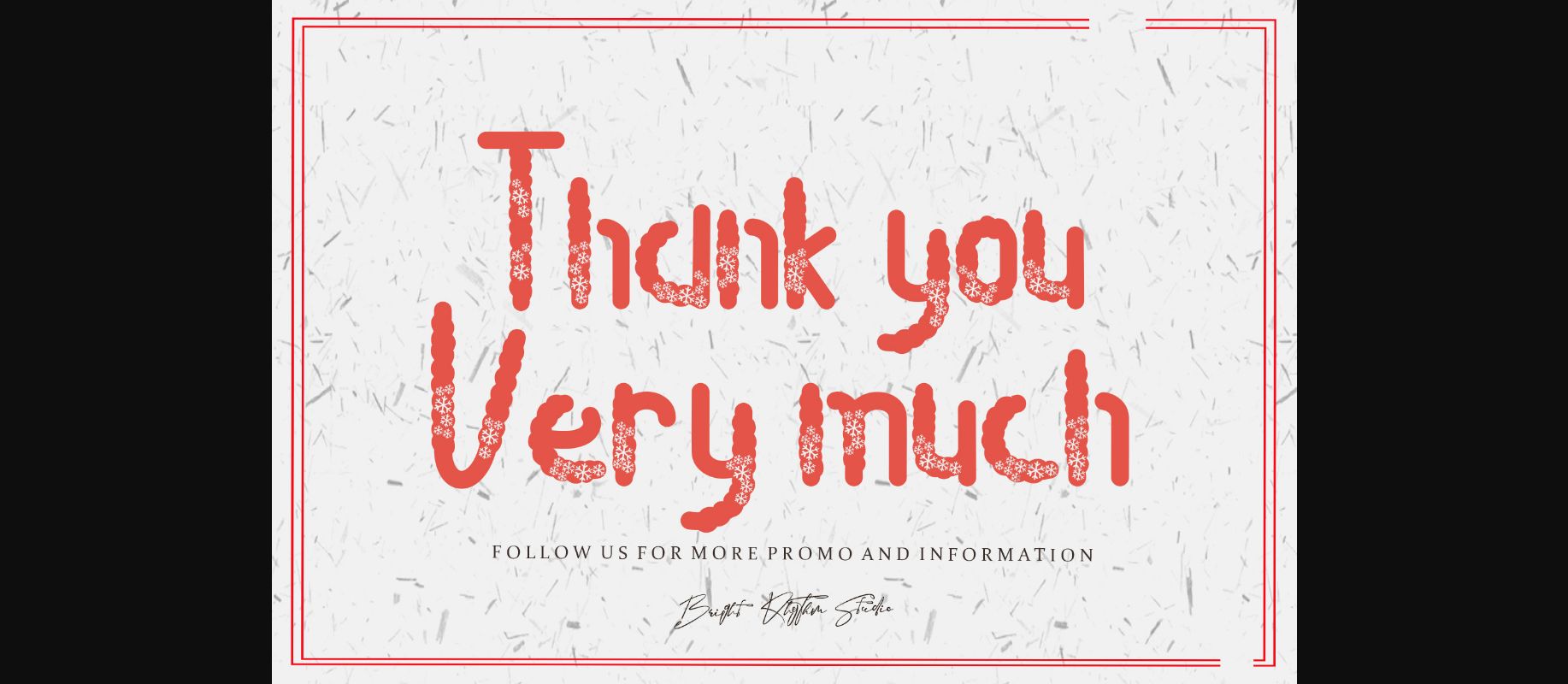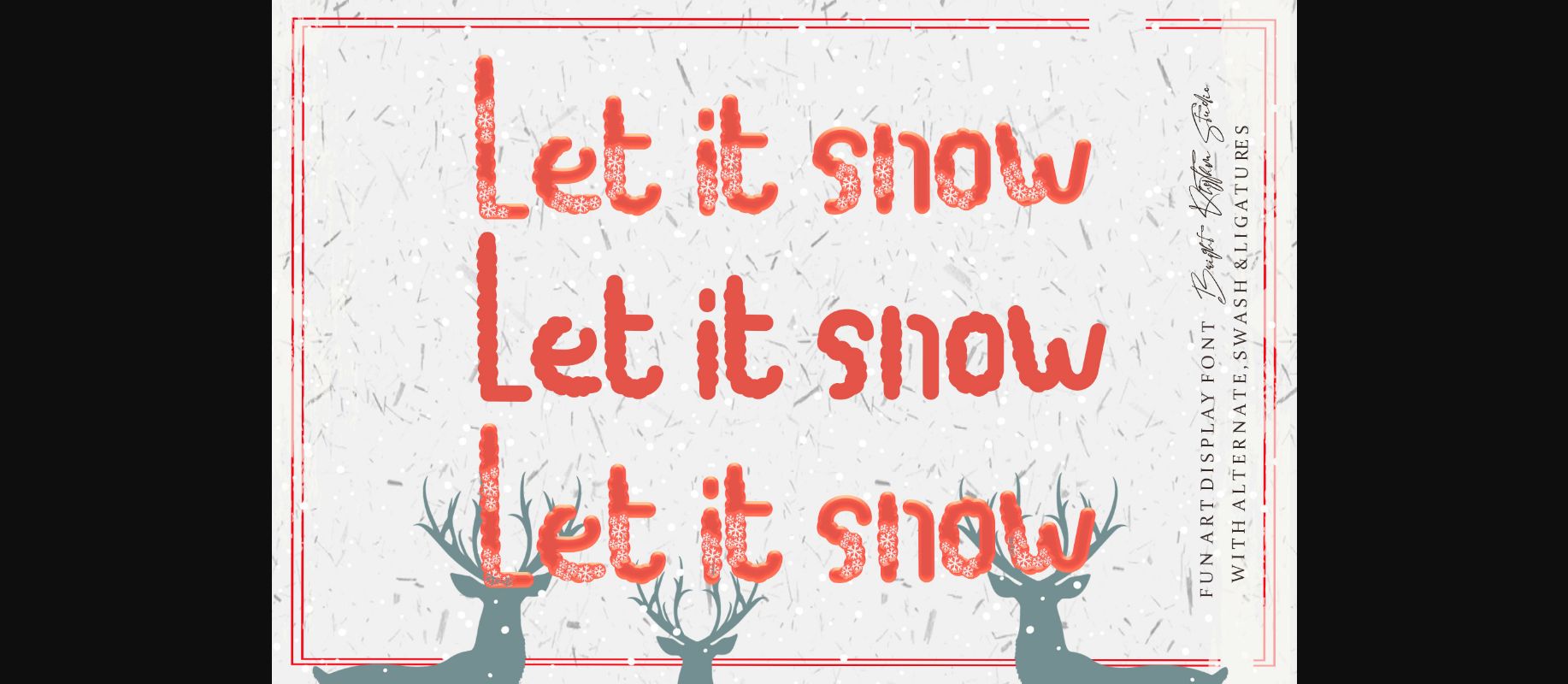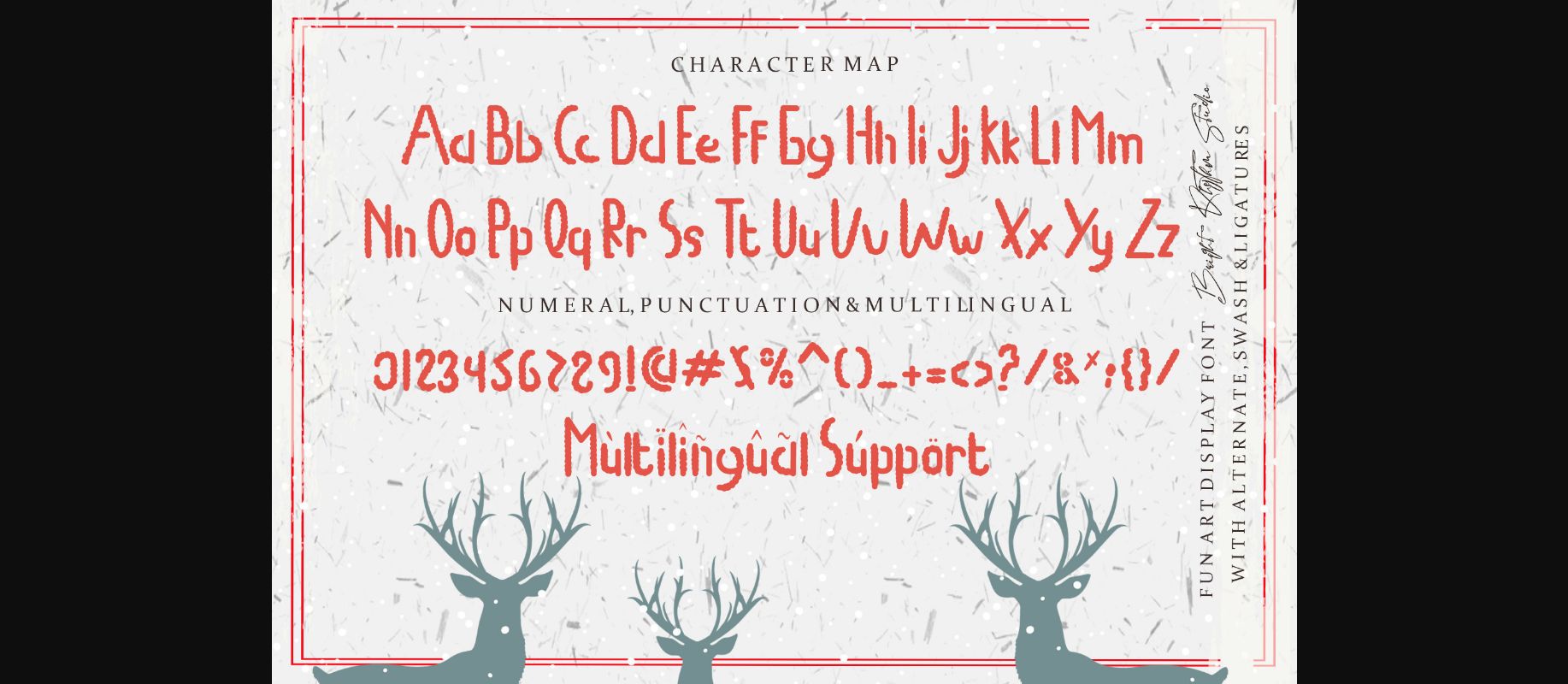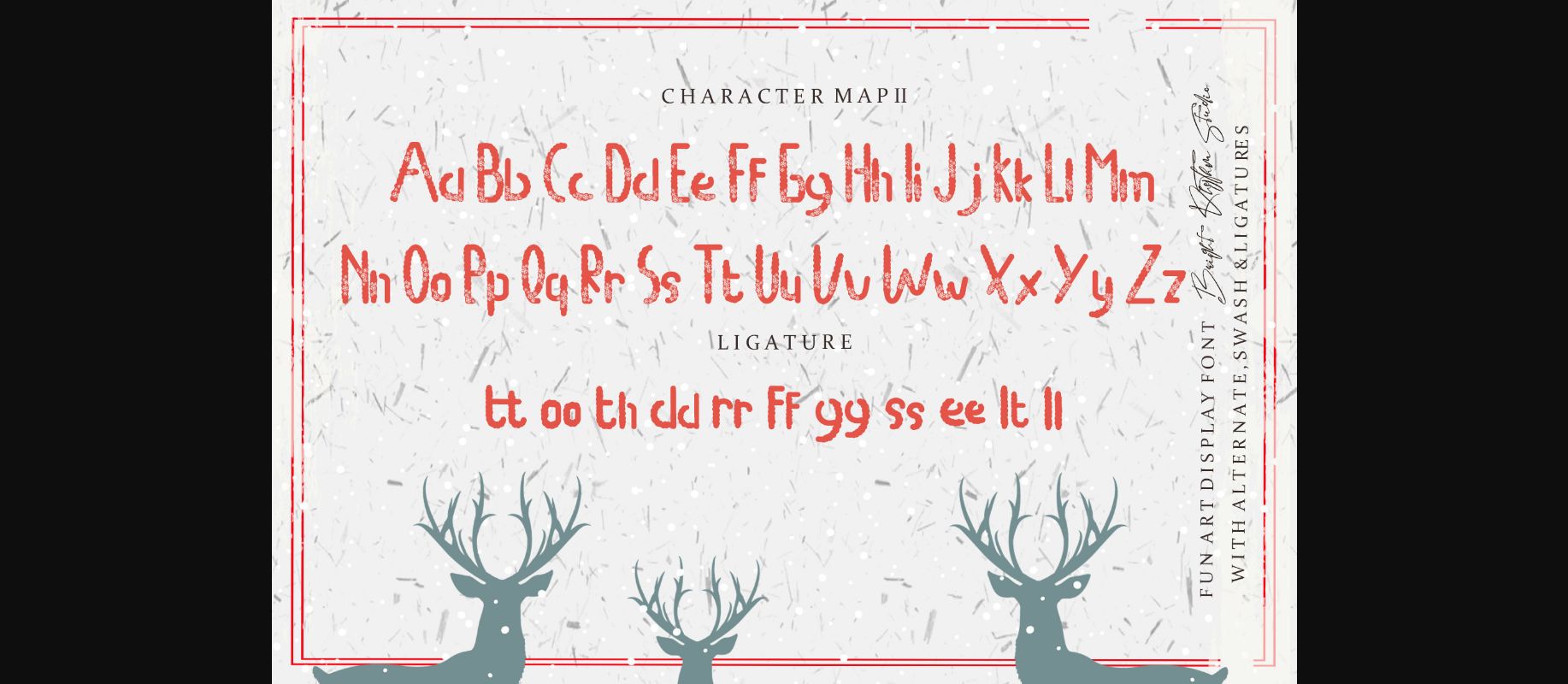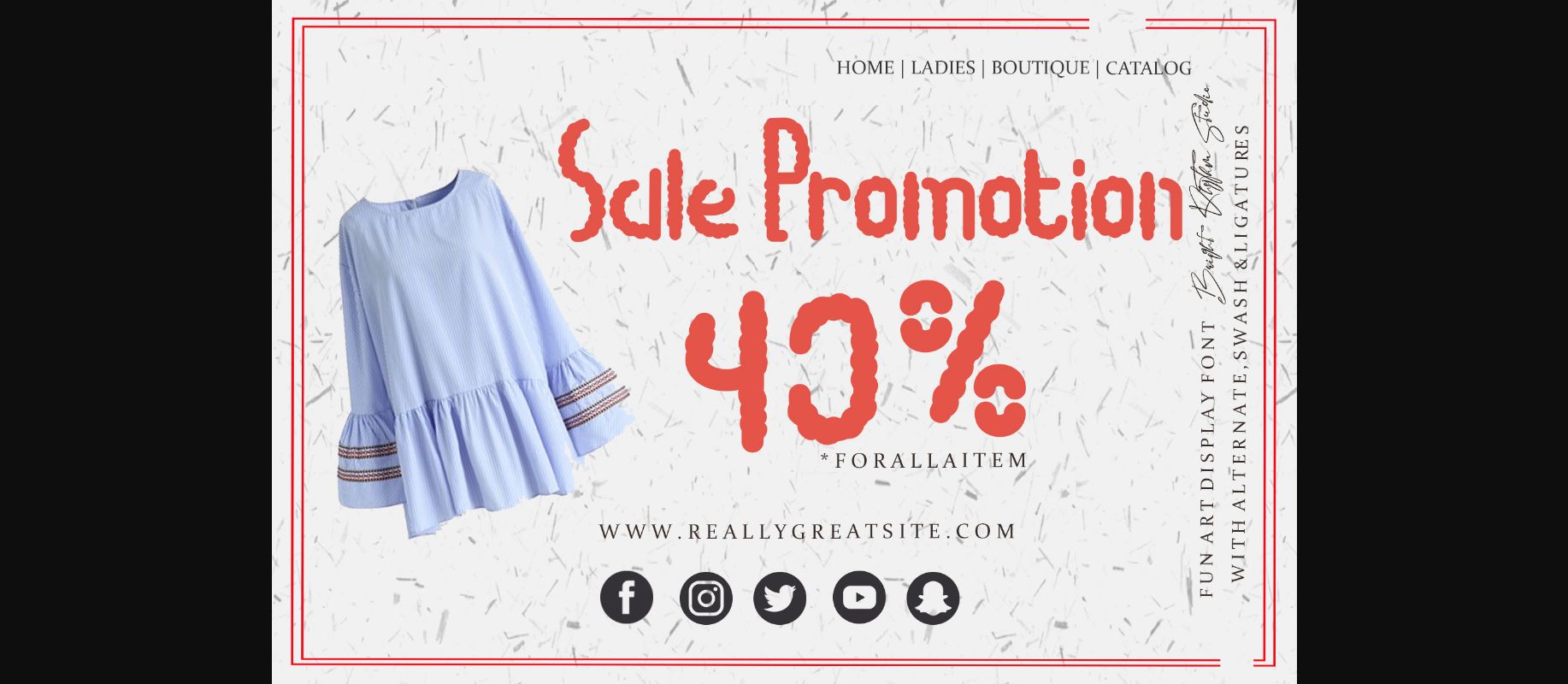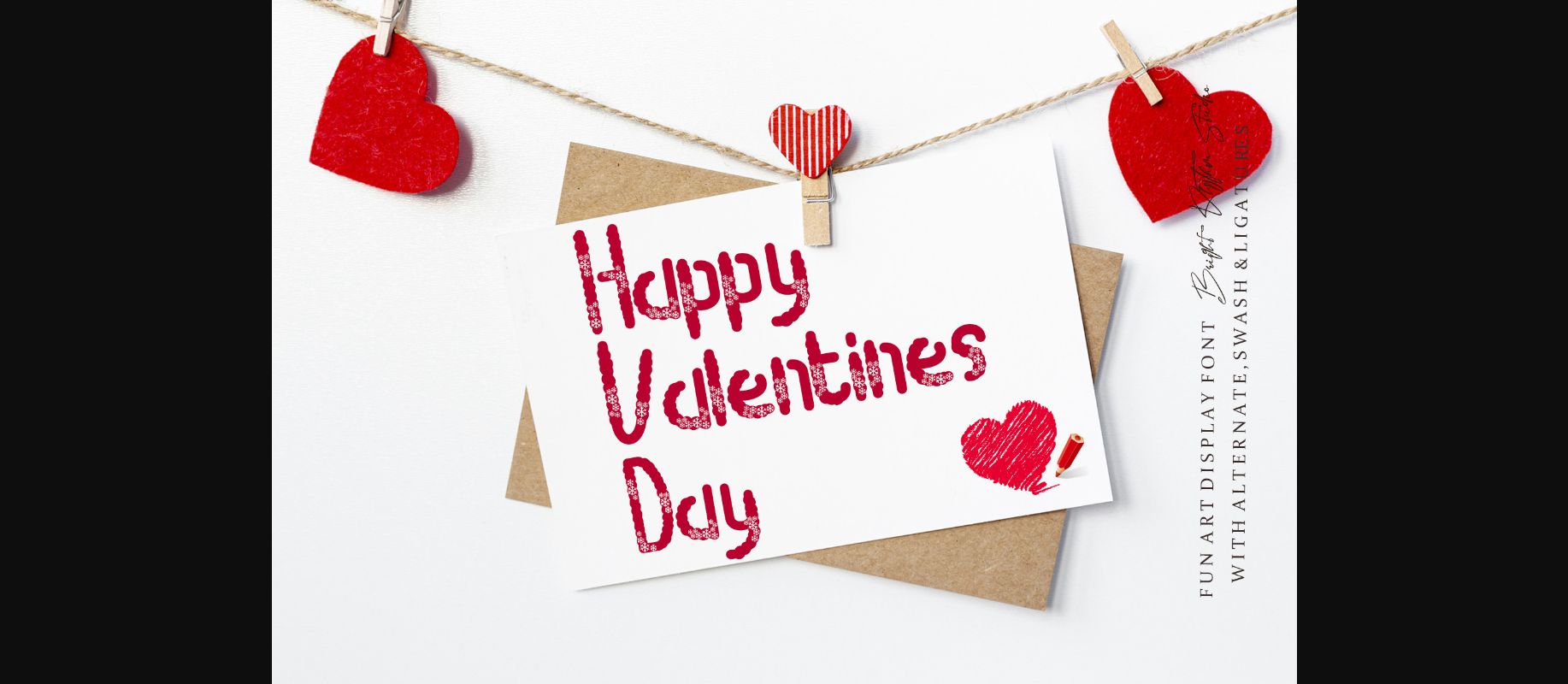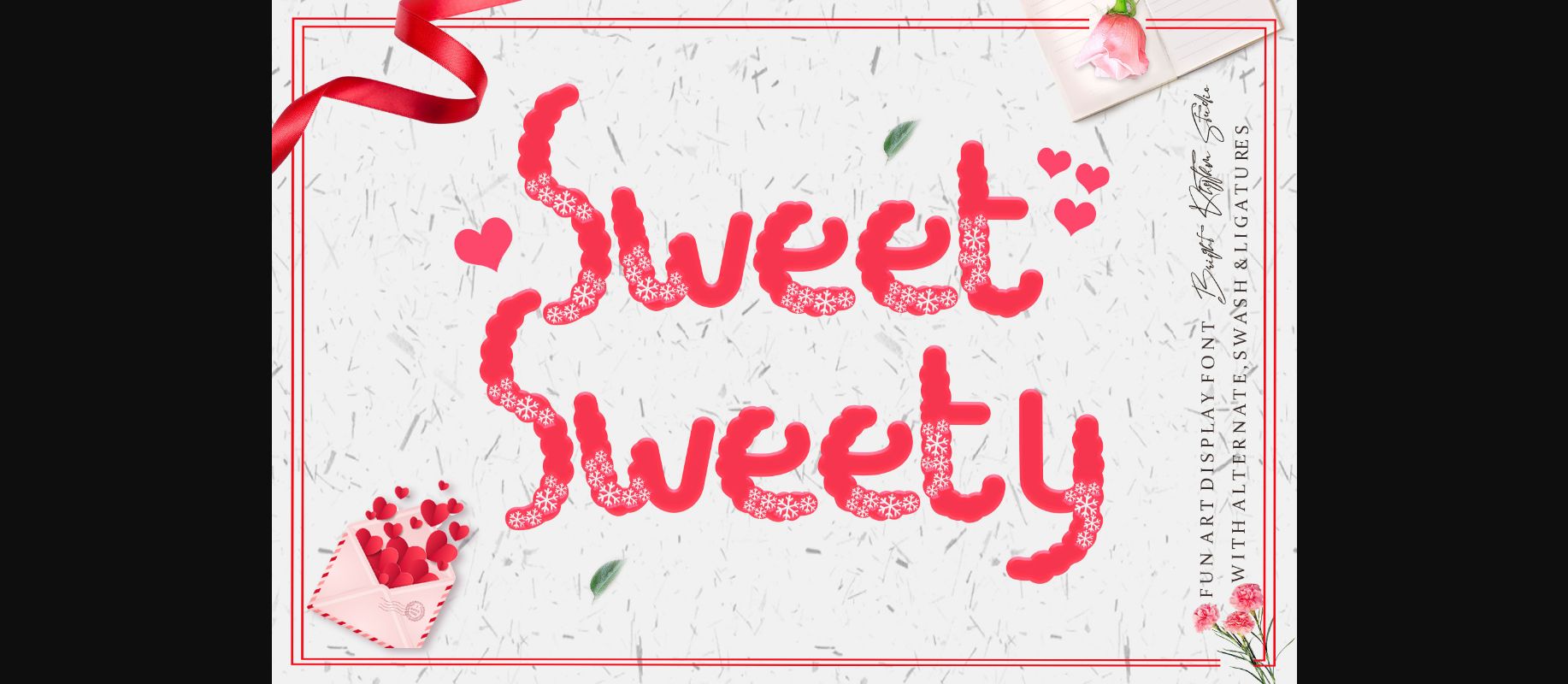
Sweet Sweety Font
Sweet Sweety is a cute decorative font with snow ornaments to each letter. It is just perfect for Valentine’s Day! This font is PUA encoded, which means you can access all of the glyphs and swashes with ease!